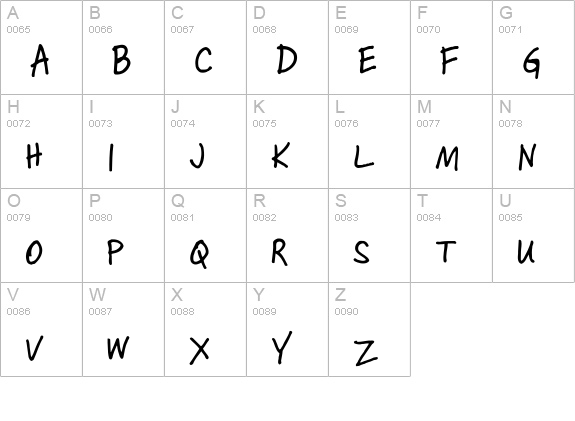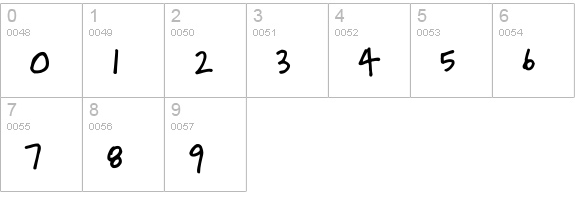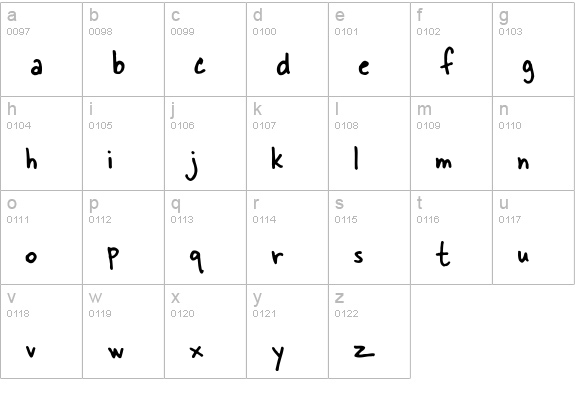
SkippySharpie Font Details
Introducing SkippySharpie font, a stunning and versatile typeface that will bring a fresh and captivating touch to your designs. With its unique blend of boldness and elegance, SkippySharpie font is perfect for a wide range of creative projects. This font exudes a sense of confidence and creativity, making it an ideal choice for branding, logos, headlines, posters, and more. Its strong and distinctive characters make a lasting impression, grabbing attention and leaving a memorable impact. But what makes SkippySharpie font even more enticing is the fact that it is freely available to download at FontsMarket.com. Yes, you read that right – this exceptional font is completely free, allowing you to enhance your designs without breaking the bank. SkippySharpie font's versatility knows no bounds. Whether you're aiming for a modern and edgy look or a classic and timeless appeal, this font adapts effortlessly to any style or theme. Its clean lines and smooth curves create a harmonious balance, ensuring legibility and readability across various mediums. With SkippySharpie font, you have the opportunity to unleash your creativity and elevate your designs to new heights. The possibilities are endless, and the results will surely impress. So why wait? Download SkippySharpie font for free at FontsMarket.com and embark on a design journey that is both captivating and cost-effective.